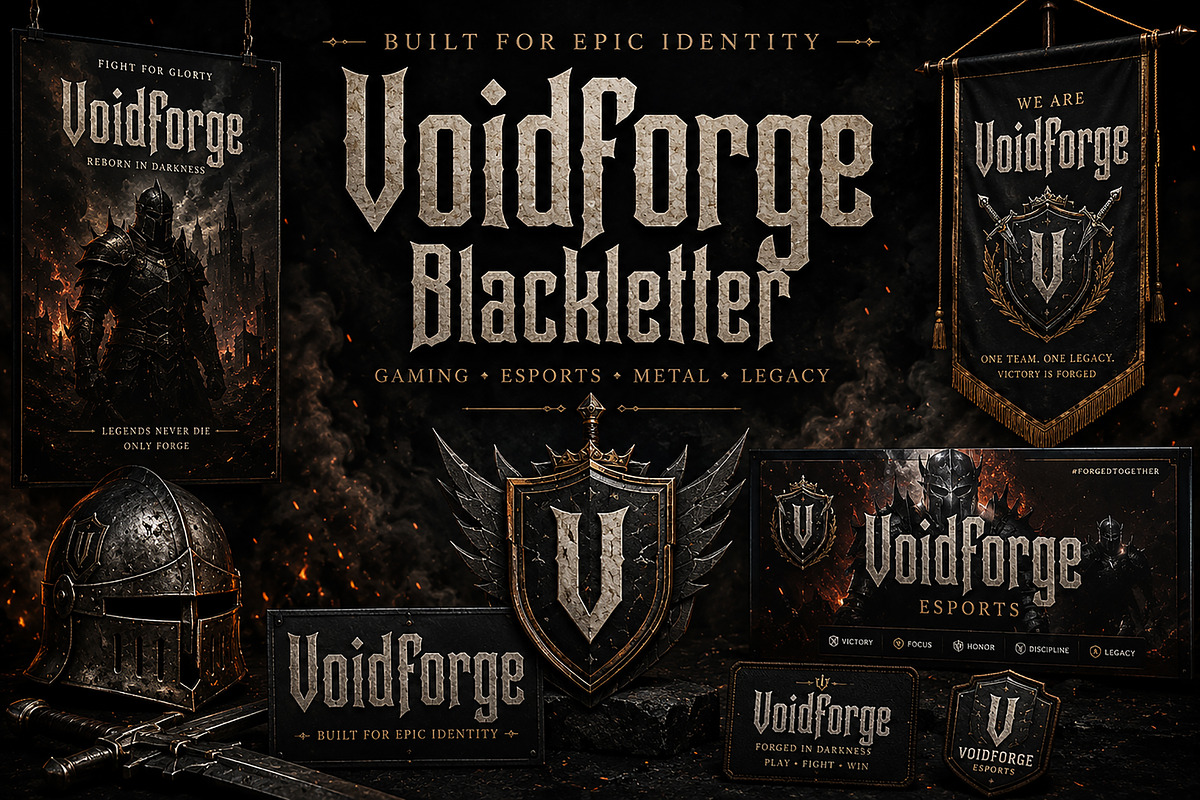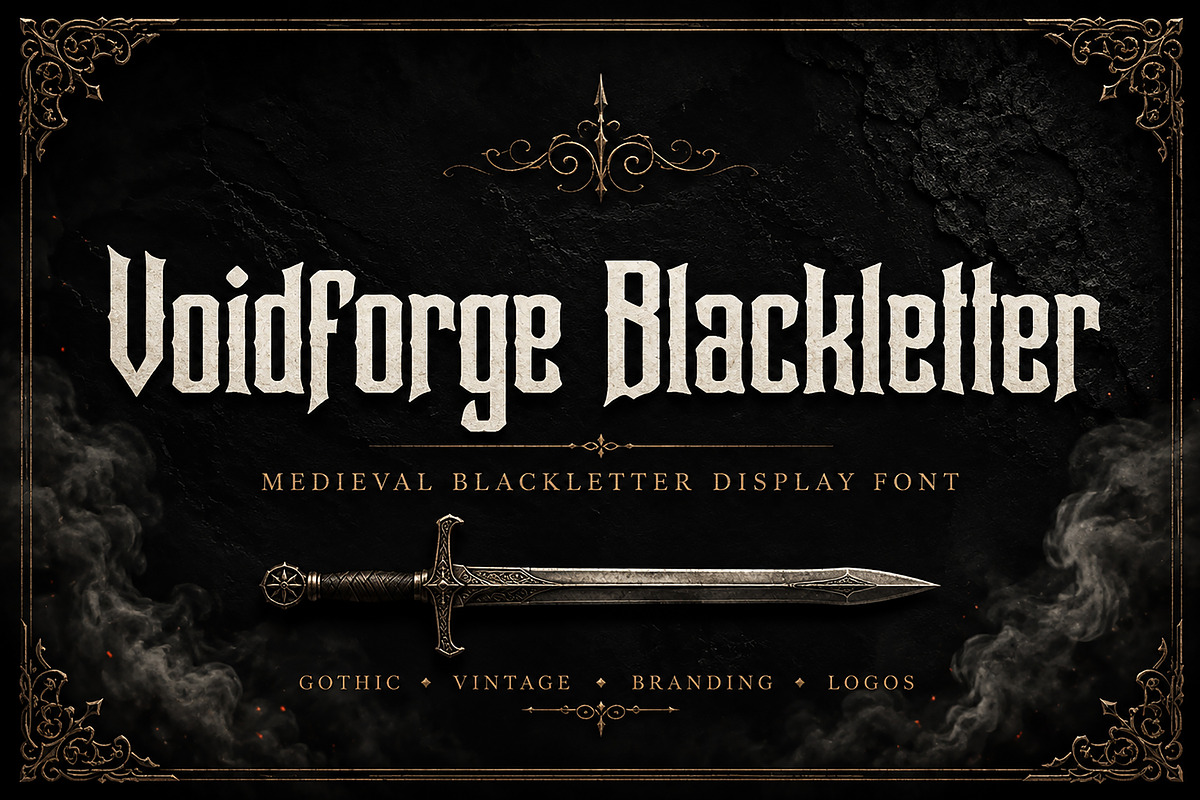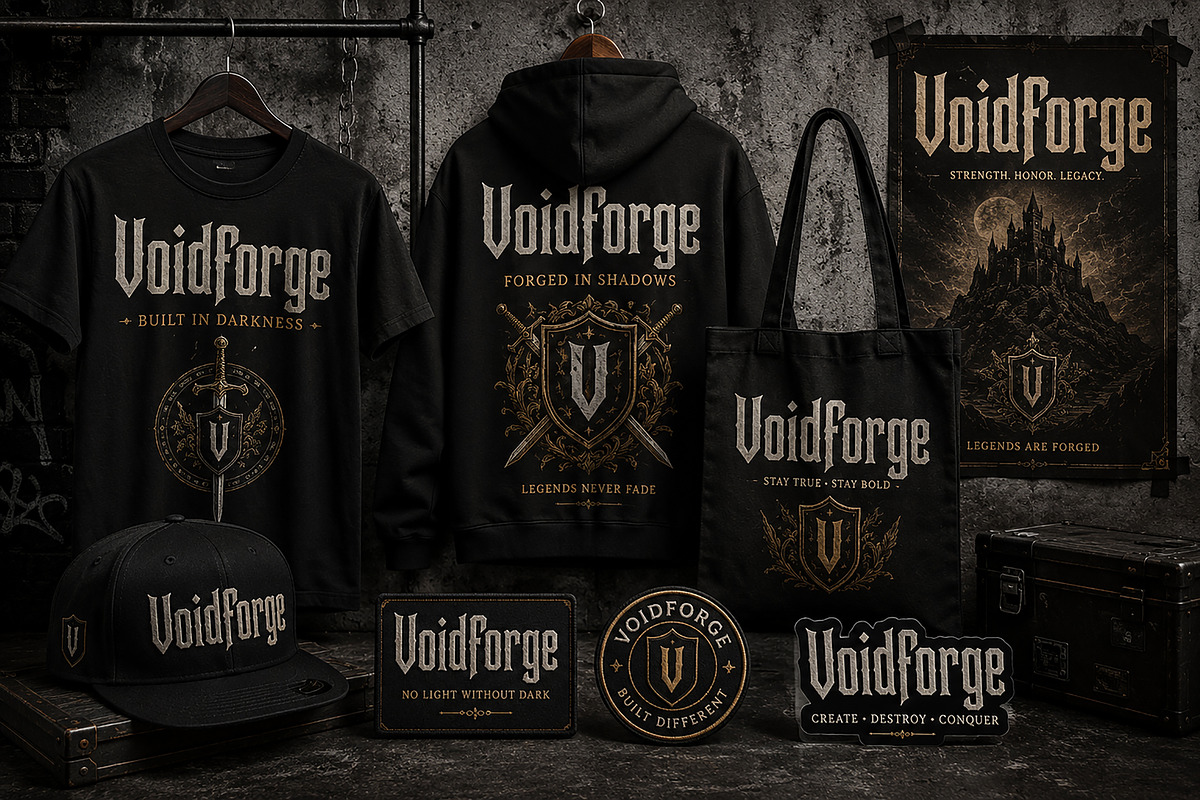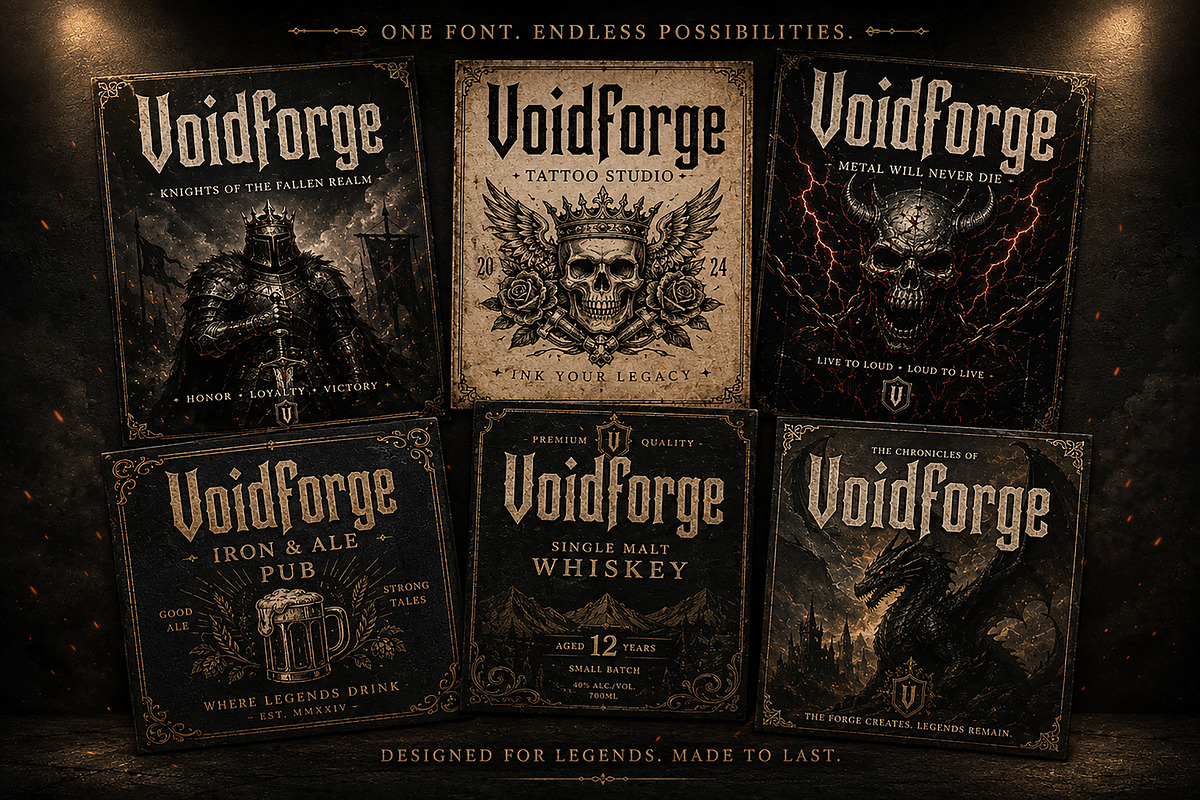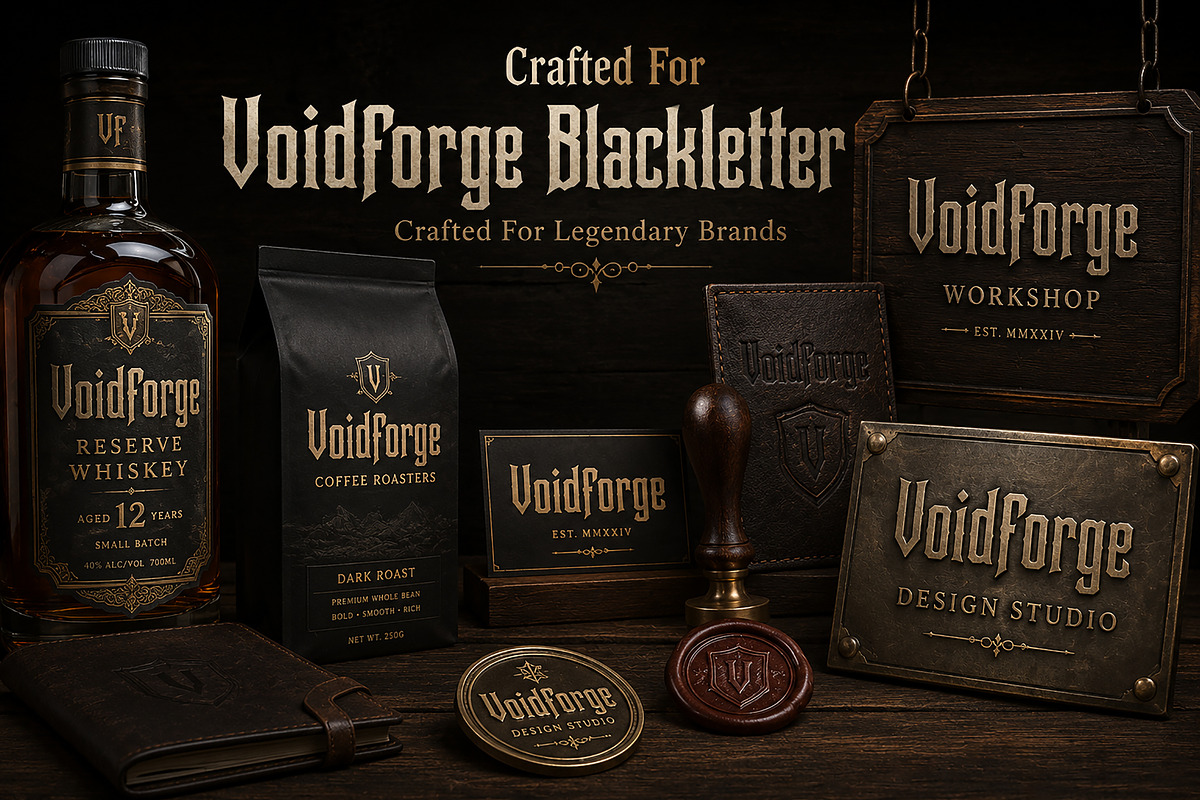
Voidforge Blackletter – Gothic Font
Voidforge Blackletter – Medieval Gothic Display Font
Voidforge Blackletter is a bold and commanding medieval blackletter display font inspired by Gothic craftsmanship, ancient manuscripts, and timeless European typography. Designed with sharp edges, strong vertical strokes, and an authentic historic feel, this typeface is perfect for creating powerful visual identities that stand out.
Whether you're designing logos, branding, gaming graphics, whiskey labels, fantasy artwork, apparel, posters, or packaging, Voidforge Blackletter delivers a premium, dark, and professional aesthetic with exceptional visual impact.
Its carefully crafted letterforms combine traditional blackletter character with modern usability, making it an excellent choice for both print and digital design projects.
Logos & Brand Identity
Gaming & Esports
Heavy Metal Designs
Medieval & Fantasy Themes
Whiskey & Craft Beer Labels
Tattoo Studio Branding
Apparel & Streetwear
Posters & Album Covers
Vintage Signage
Luxury Branding
YouTube Thumbnails
Voidforge Blackletter is a bold medieval Gothic display font featuring powerful letterforms and an authentic blackletter style. Perfect for logos, branding, gaming, fantasy artwork, whiskey labels, apparel, posters, packaging, and vintage-inspired designs.